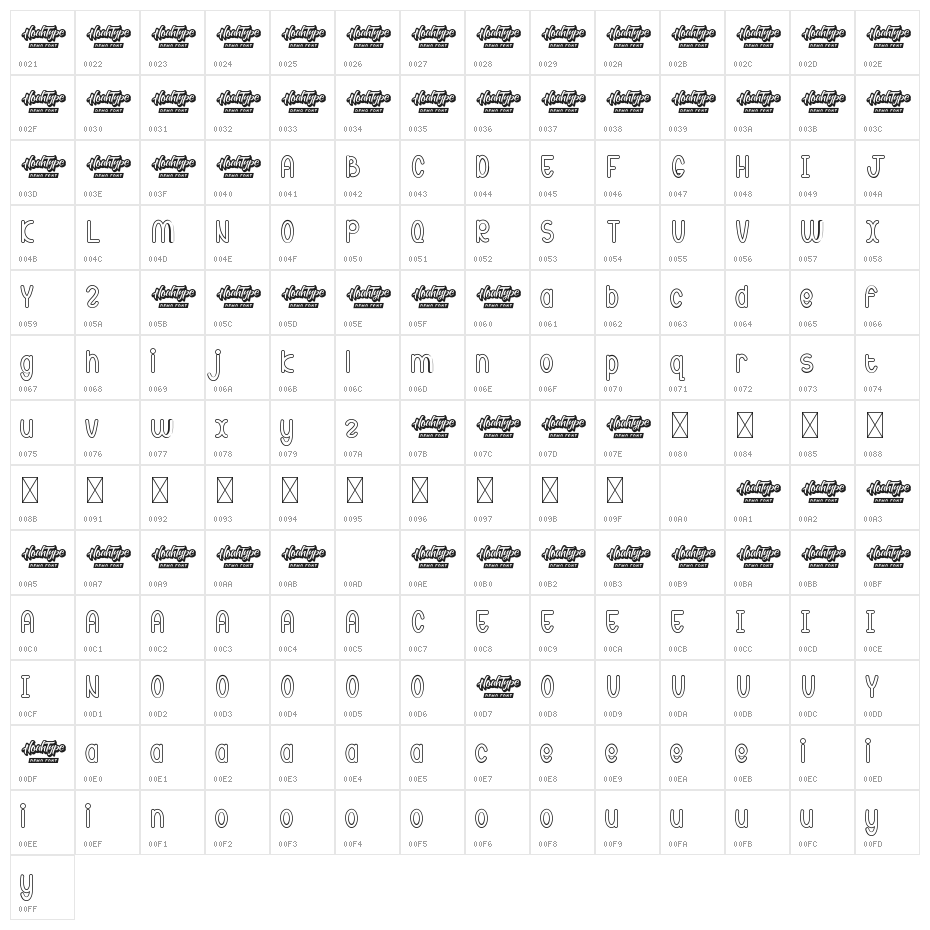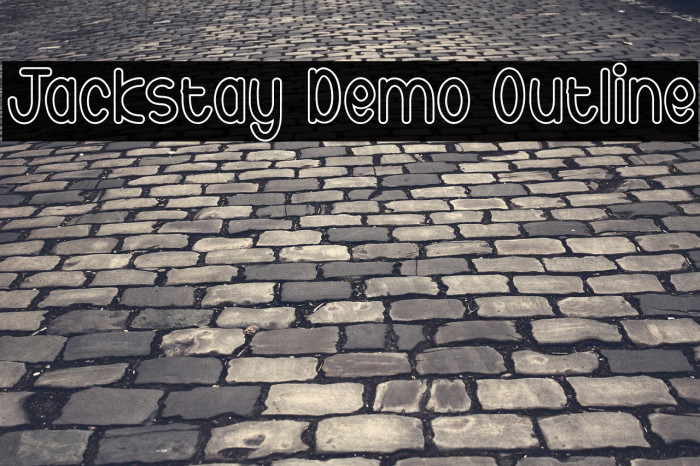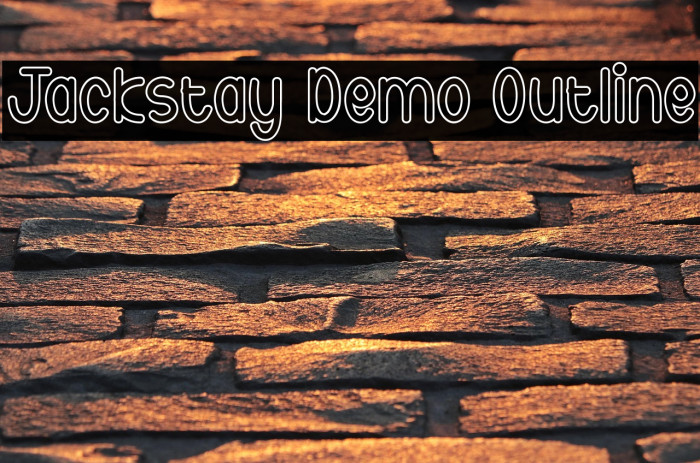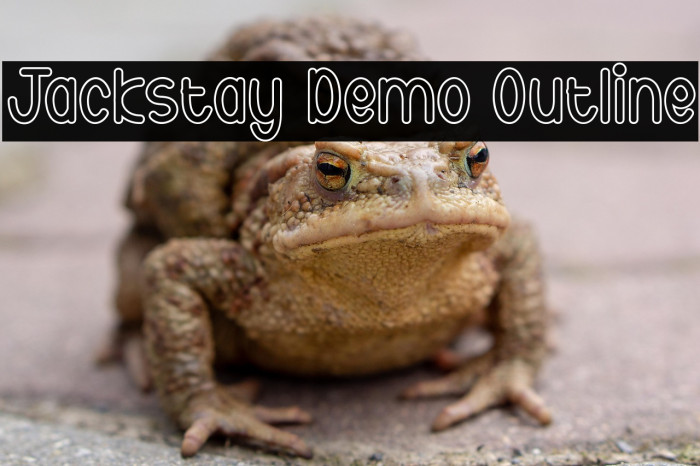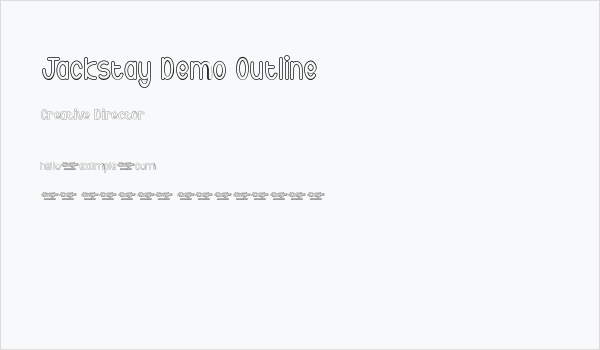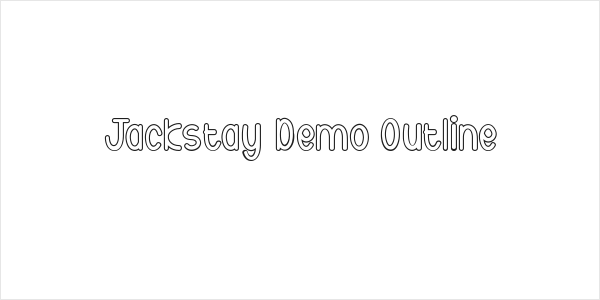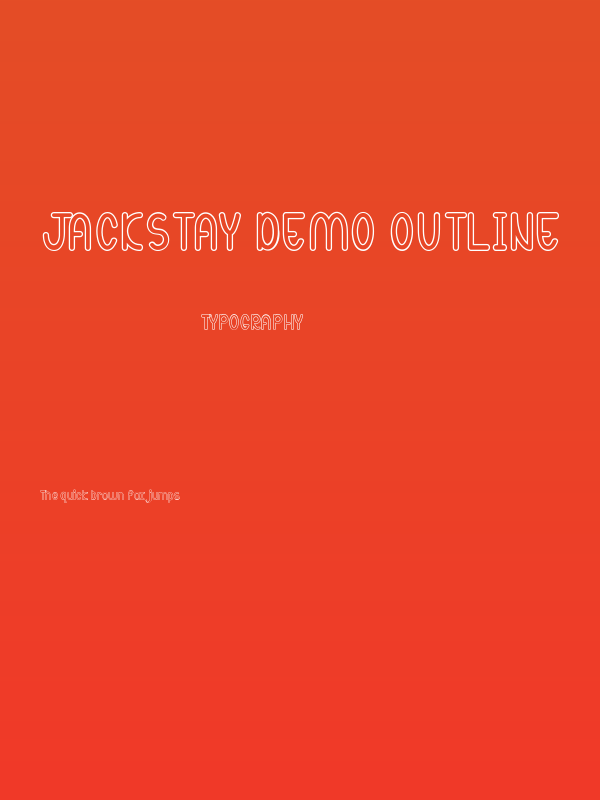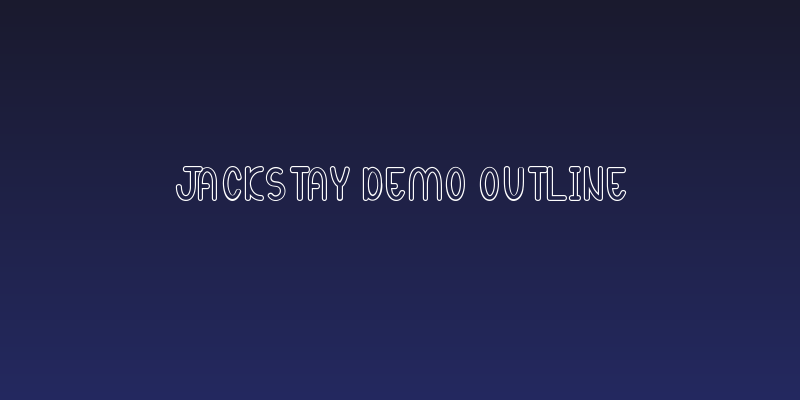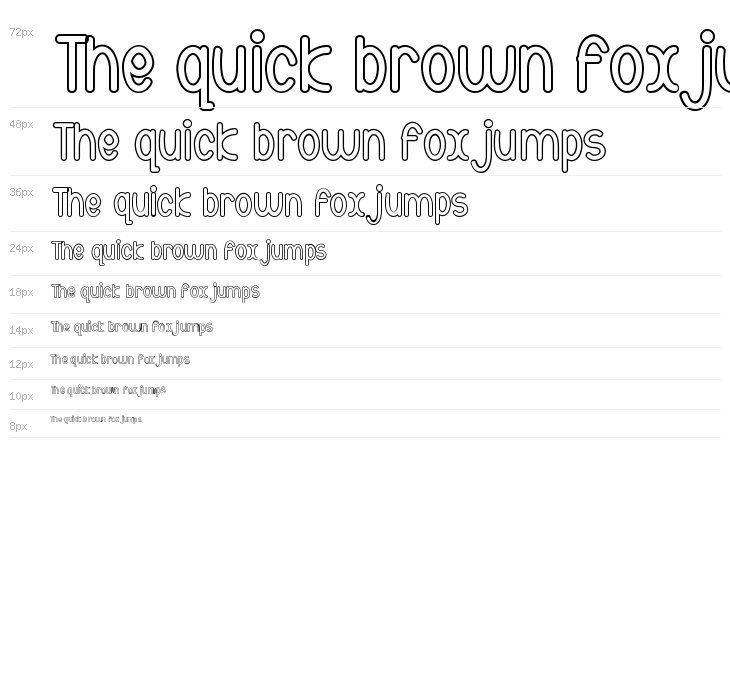
Jackstay Demo Outline Font
Jackstay Demo Outline Description
This font features a playful and modern outline style, characterized by its bold and rounded letterforms. The uppercase and lowercase letters maintain a consistent width, creating a harmonious and balanced appearance. The outlines are clean and smooth, giving the font a friendly and approachable feel. The design is versatile, suitable for a variety of creative projects that require a touch of fun and uniqueness. The font's structure is simple yet effective, making it easy to read while adding a distinctive flair to any text.
| Proposed Projects | Ideal for children's books, playful branding, posters, and creative digital designs. |